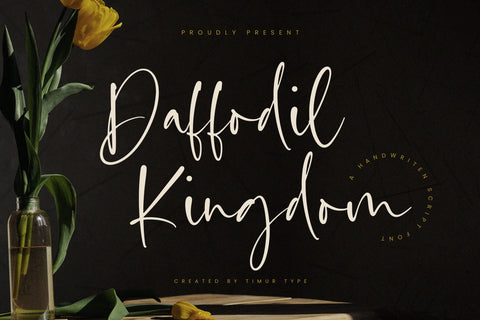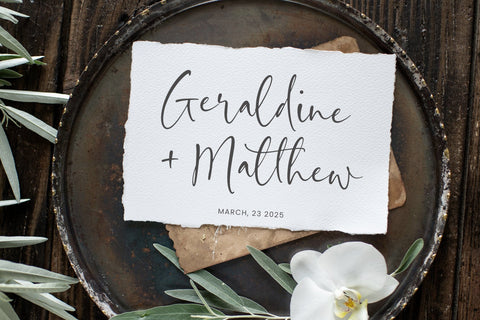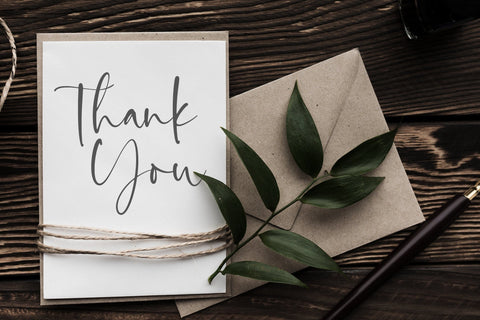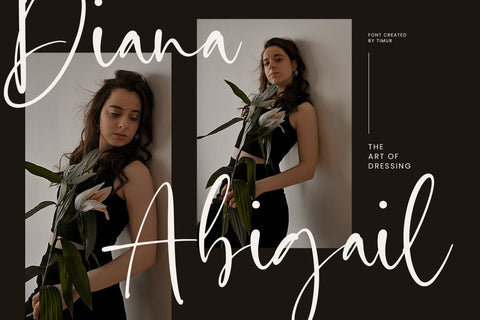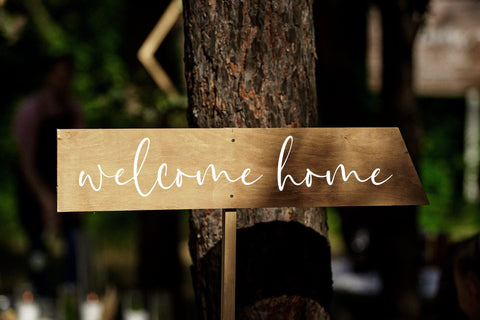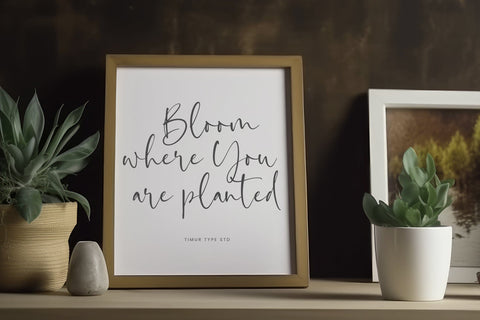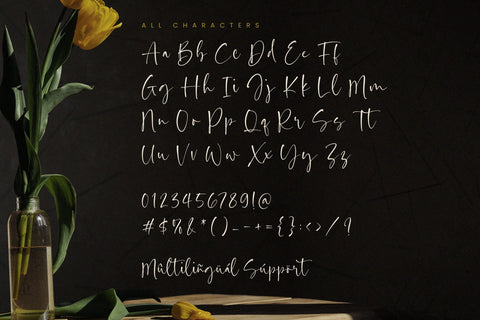
Daffodil Kingdom - Handwritten Script Font
Daffodil Kingdom is a Handwritten Script Font
This font is a whimsical and enchanting choice for your design projects. With its delicate and flowing letterforms, this font exudes a sense of elegance and grace. The handcrafted details and graceful curves bring a sense of beauty and sophistication to any text. The Daffodil Kingdom font is perfect for creating wedding invitations, logos, and branding materials that require a touch of romance and charm. Its unique and captivating style will transport you to a world of enchantment, making your designs truly stand out. Embrace the beauty of the Daffodil Kingdom handwritten script font and let your imagination bloom
Daffodil Kingdom Font also supports multilingualism.